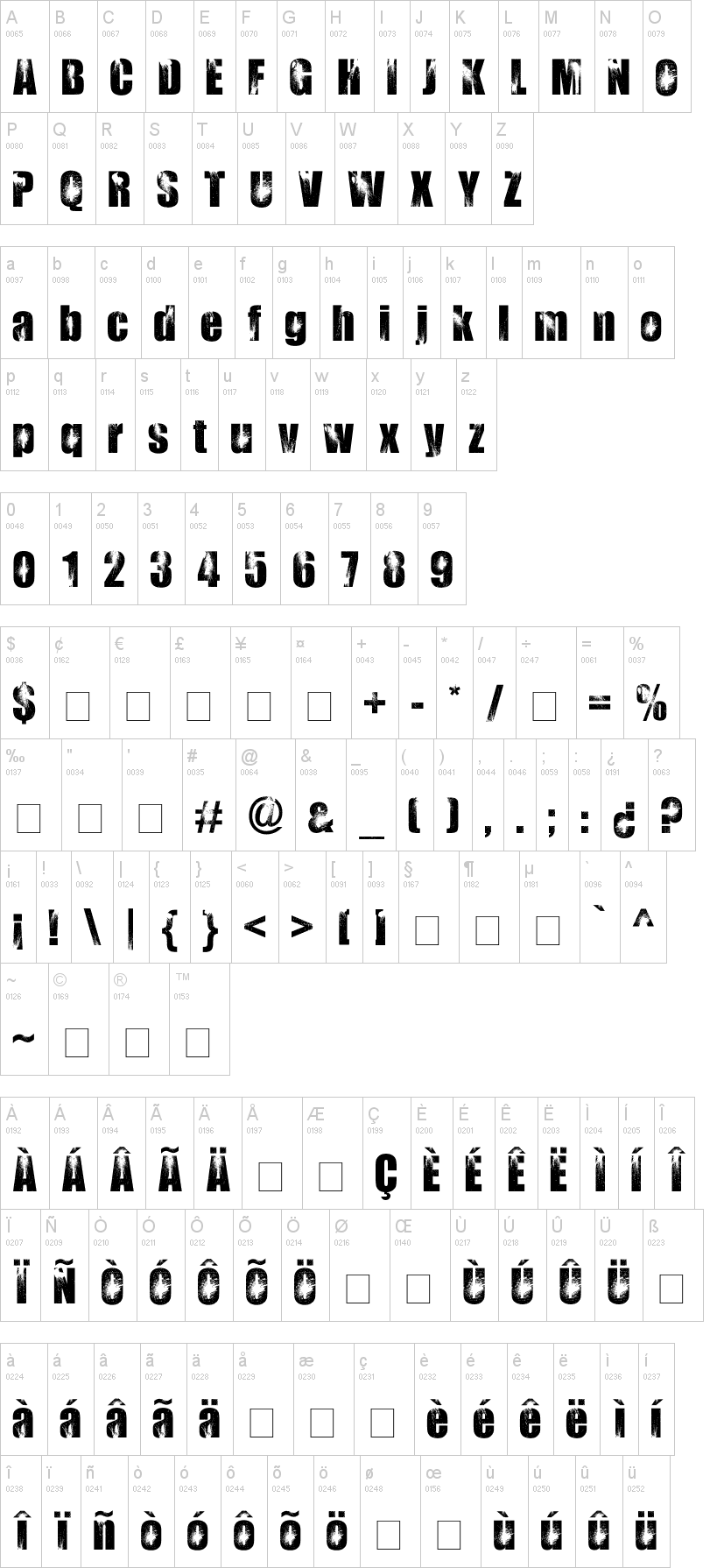
Note of the authorBloody Impact. A font designed to look like a blood-soaked block letter typeface. Free for personal use, commercial use requires licensing.